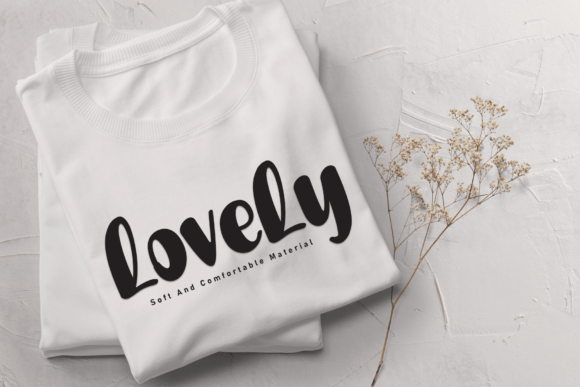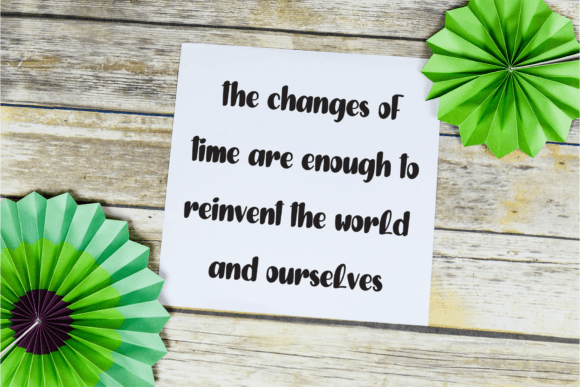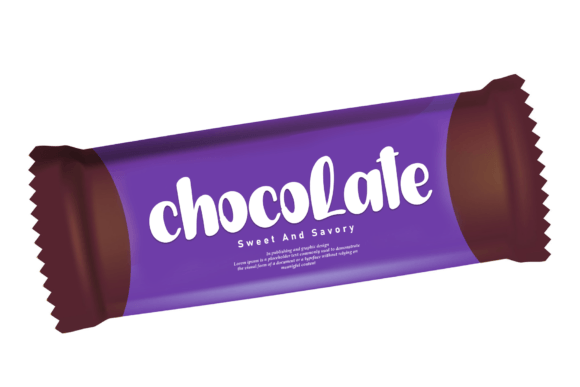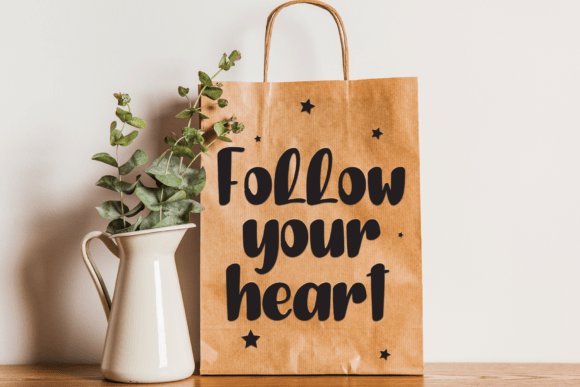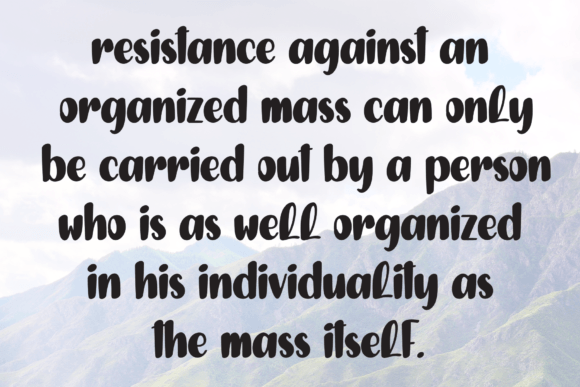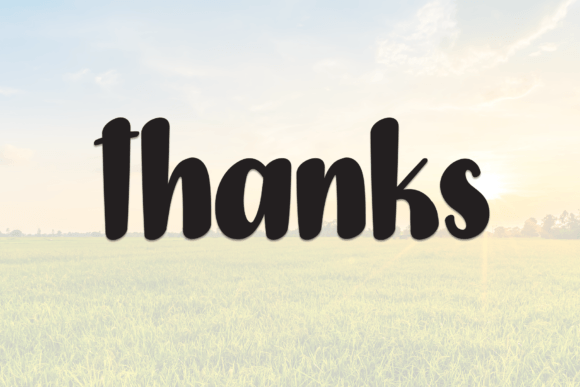
Introducing Friday Font: The Sweet and Friendly Handwritten Display Font
Are you looking for a font that can add a touch of whimsy and playfulness to your designs? Look no further than Friday Font, a sweet and friendly handwritten display font that’s perfect for a variety of creative projects. In this article, we’ll take a closer look at Friday Font, its features, and how you can use it to elevate your designs.
What is Friday Font?
Friday Font is a beautiful, handwritten display font that’s designed to bring a smile to your face. It’s a cute and fun font that’s ideal for writing wedding invitations, cards, or any other design that might need a fun touch. With its playful and carefree vibe, Friday Font is sure to capture the attention of your audience and leave a lasting impression.
Key Features of Friday Font
So, what makes Friday Font so special? Here are some of its key features:
- Handwritten style: Friday Font has a beautiful, handwritten style that’s perfect for adding a personal touch to your designs.
- Cute and fun: This font is designed to be playful and fun, making it ideal for designs that require a lighthearted touch.
- Display font: Friday Font is a display font, which means it’s perfect for headlines, titles, and other attention-grabbing elements.
- Easy to read: Despite its playful style, Friday Font is easy to read, making it perfect for body text and other longer blocks of text.
Use Cases for Friday Font
So, how can you use Friday Font in your designs? Here are some ideas to get you started:
- Wedding invitations: Friday Font is perfect for wedding invitations, as it adds a touch of romance and whimsy to your design.
- Cards and stationery: This font is also great for cards and stationery, as it adds a personal touch to your correspondence.
- Social media graphics: Friday Font is perfect for social media graphics, as it’s attention-grabbing and fun.
- Branding and packaging: If you’re looking for a font that can add a touch of personality to your branding and packaging, Friday Font is a great choice.
Tips for Using Friday Font
Here are some tips for using Friday Font in your designs:
- Use it sparingly: While Friday Font is a beautiful font, it’s best used sparingly. Use it for headlines and titles, and pair it with a simpler font for body text.
- Pair it with complementary fonts: Friday Font pairs well with a variety of fonts, including sans-serif fonts like Arial and Helvetica.
- Experiment with colors: Friday Font looks great in a variety of colors, so don’t be afraid to experiment and find the perfect hue for your design.
In conclusion, Friday Font is a sweet and friendly handwritten display font that’s perfect for adding a touch of whimsy and playfulness to your designs. With its cute and fun style, this font is ideal for wedding invitations, cards, social media graphics, and more. By following the tips outlined in this article, you can use Friday Font to elevate your designs and create something truly special.